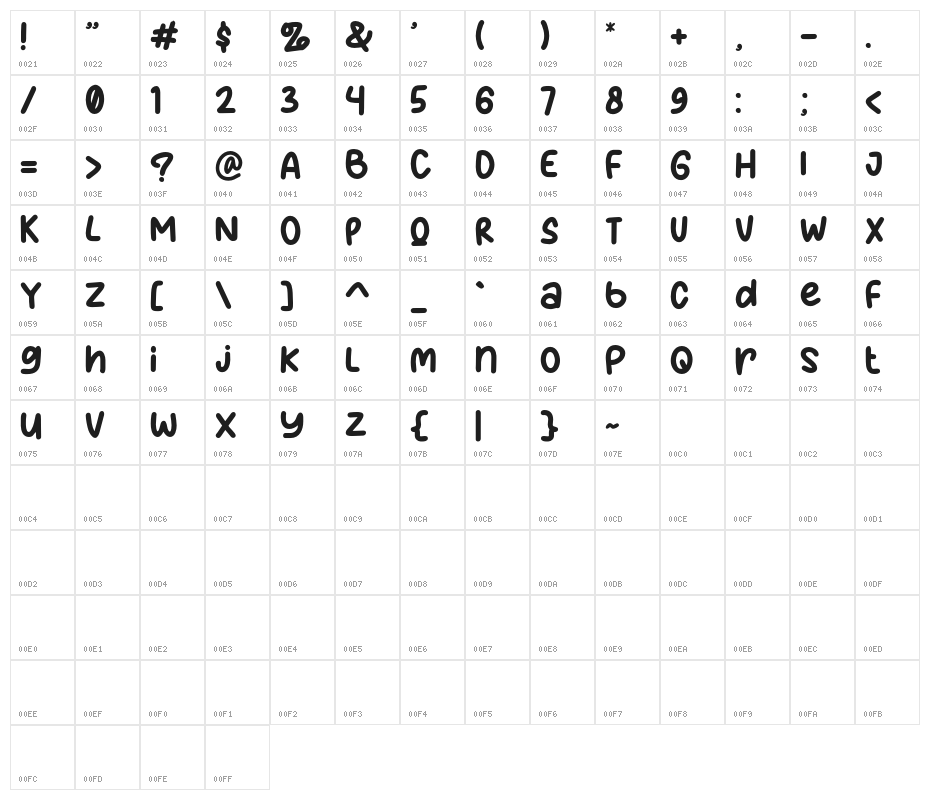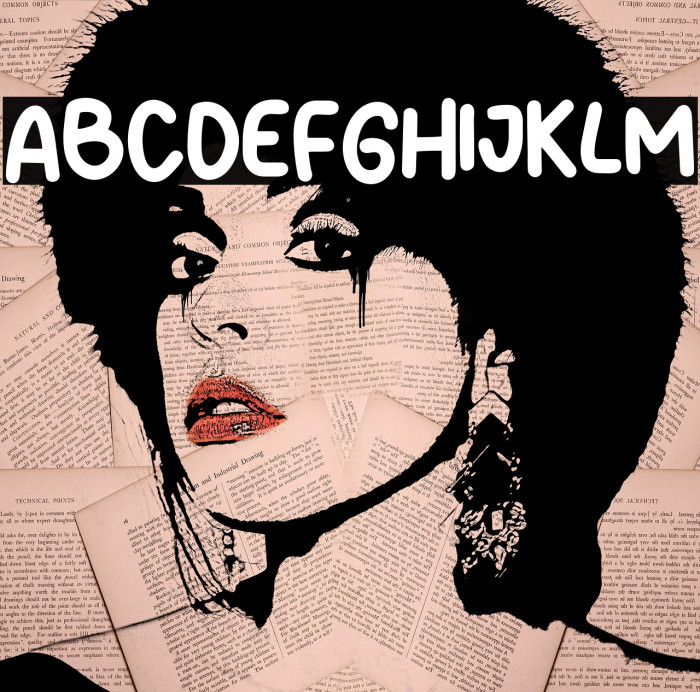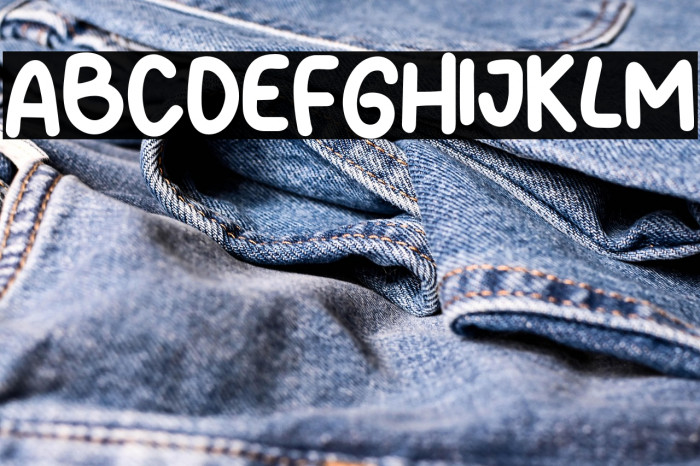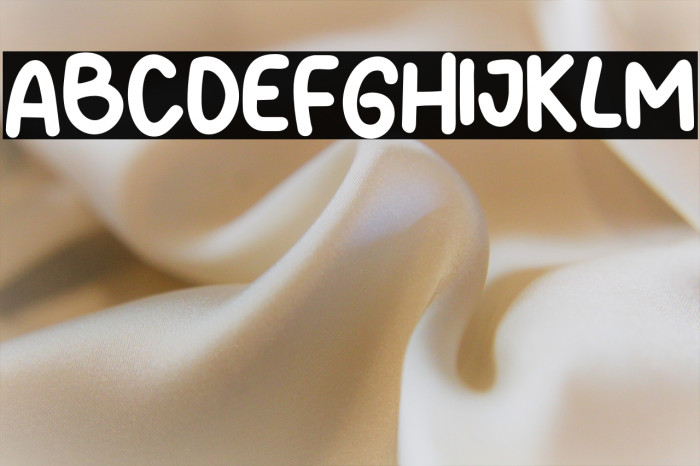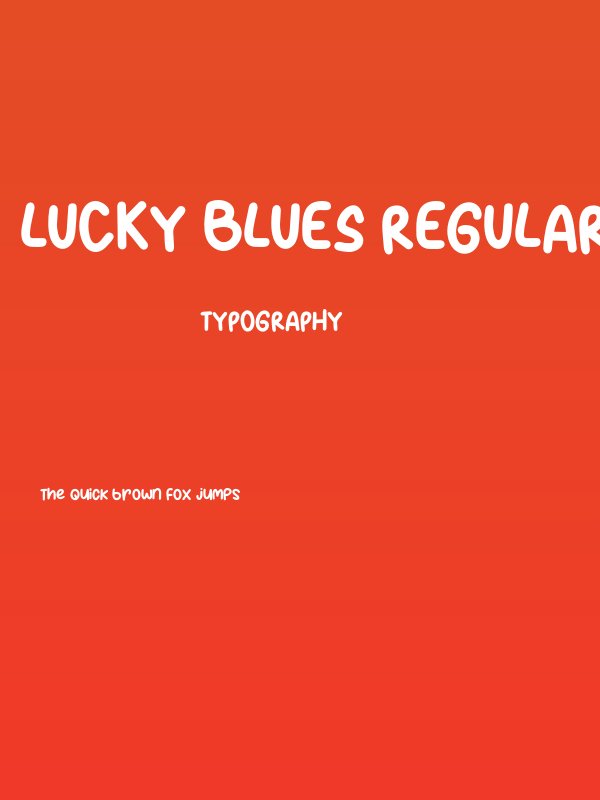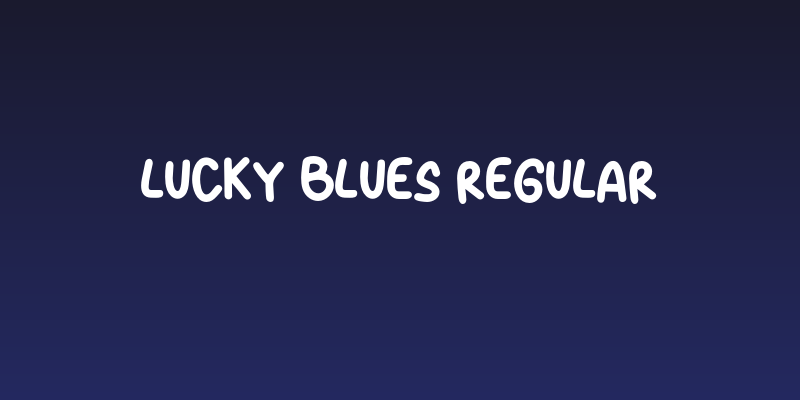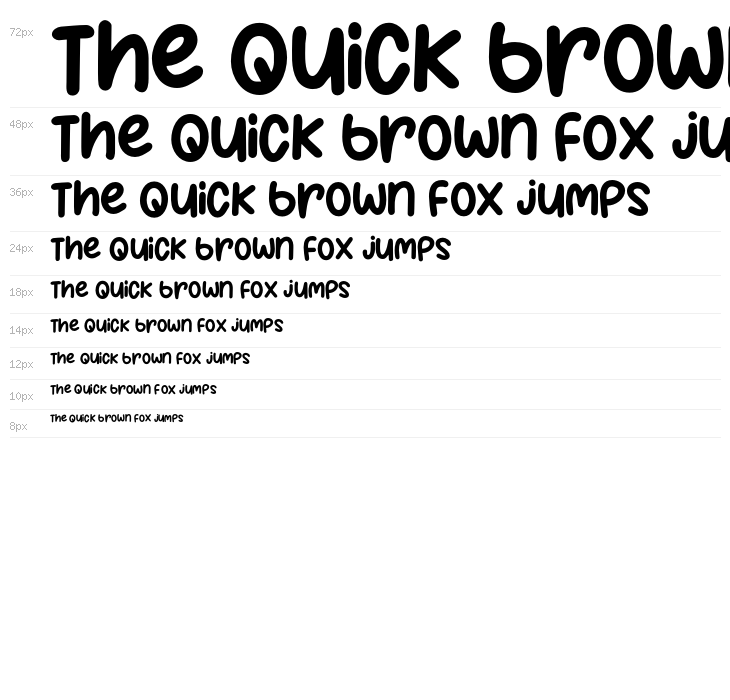
Lucky Blues Regular Font
Lucky Blues Regular Description
This playful and bold font features rounded, thick strokes that give it a friendly and approachable appearance. The characters are slightly irregular, adding a whimsical touch that makes it stand out. The uppercase and lowercase letters maintain a consistent style, with smooth curves and a uniform thickness. The numerals and special characters are equally bold and rounded, ensuring readability and cohesion across all elements. This font exudes a casual and fun vibe, making it ideal for projects that require a touch of personality and warmth.
| Proposed Projects | Ideal for children's books, playful branding, greeting cards, and casual event invitations. |